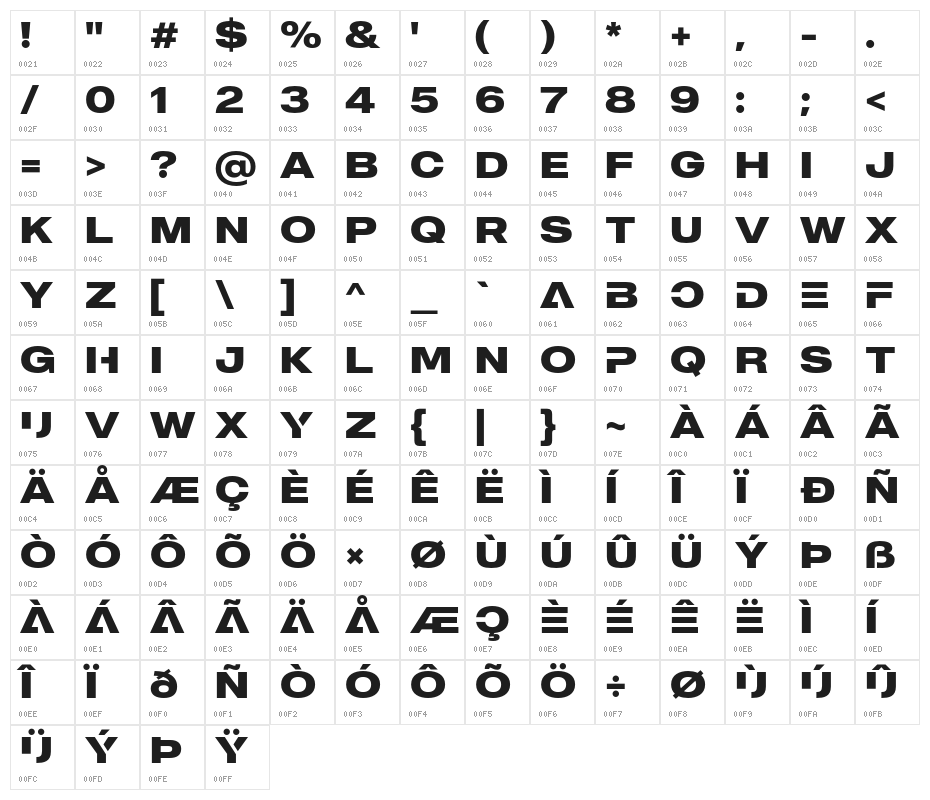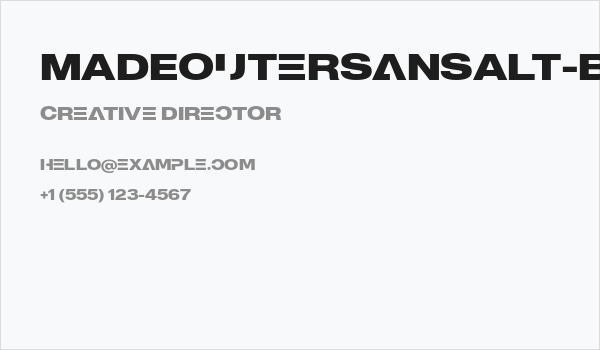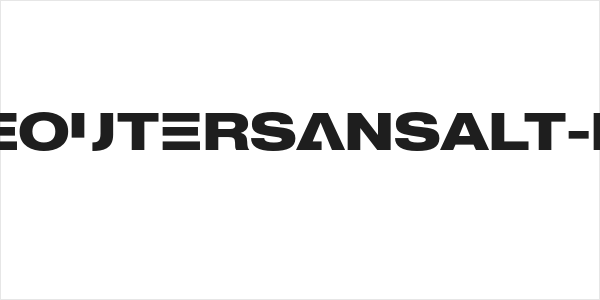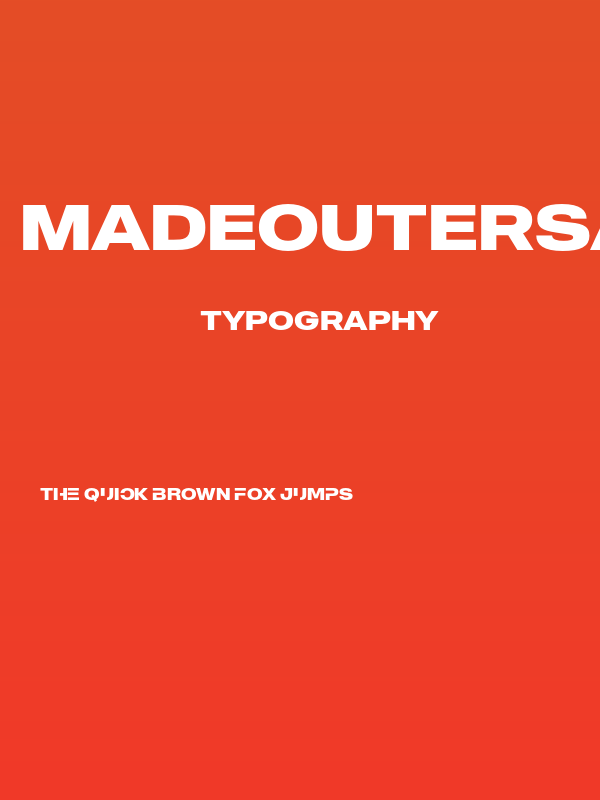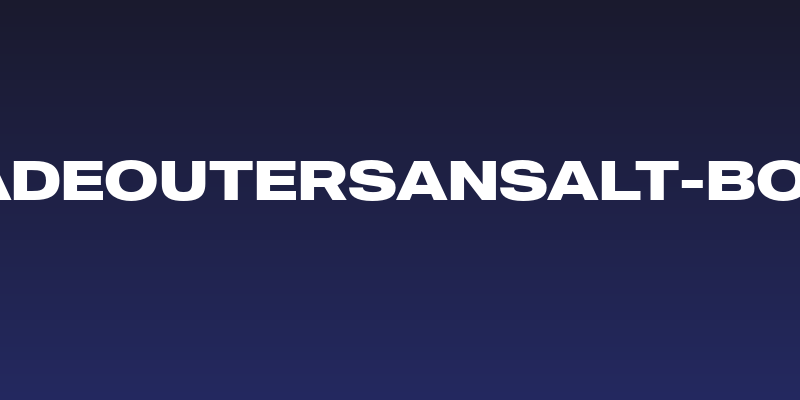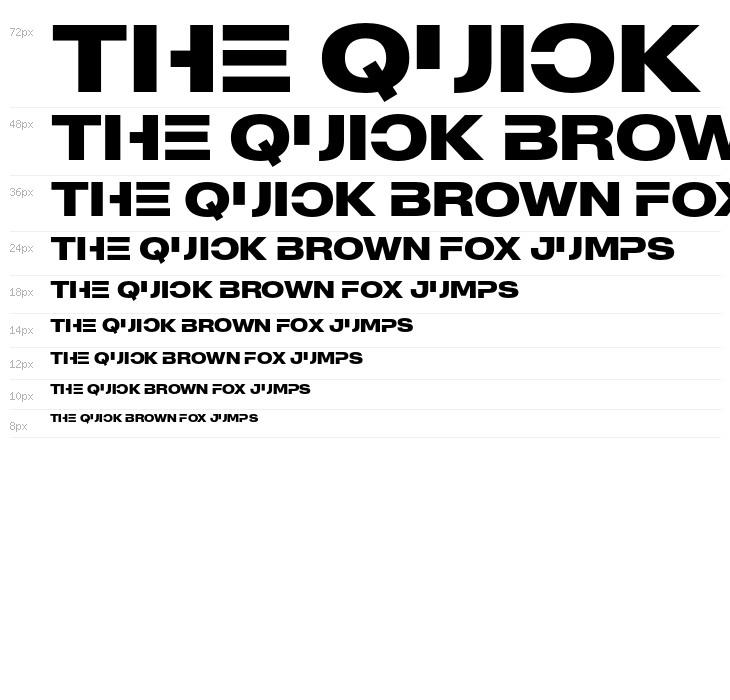
MADEOuterSansAlt-Bold Font
MADEOuterSansAlt-Bold Description
This font features a bold and striking sans-serif style with a modern and geometric appearance. The characters are uniformly thick, providing a strong visual impact. The uppercase letters are particularly wide and commanding, making them ideal for attention-grabbing headlines. The numerals are equally bold, ensuring consistency across all characters. Special characters are designed with the same boldness, maintaining the overall aesthetic. The font's clean lines and lack of serifs give it a contemporary feel, suitable for modern design projects.